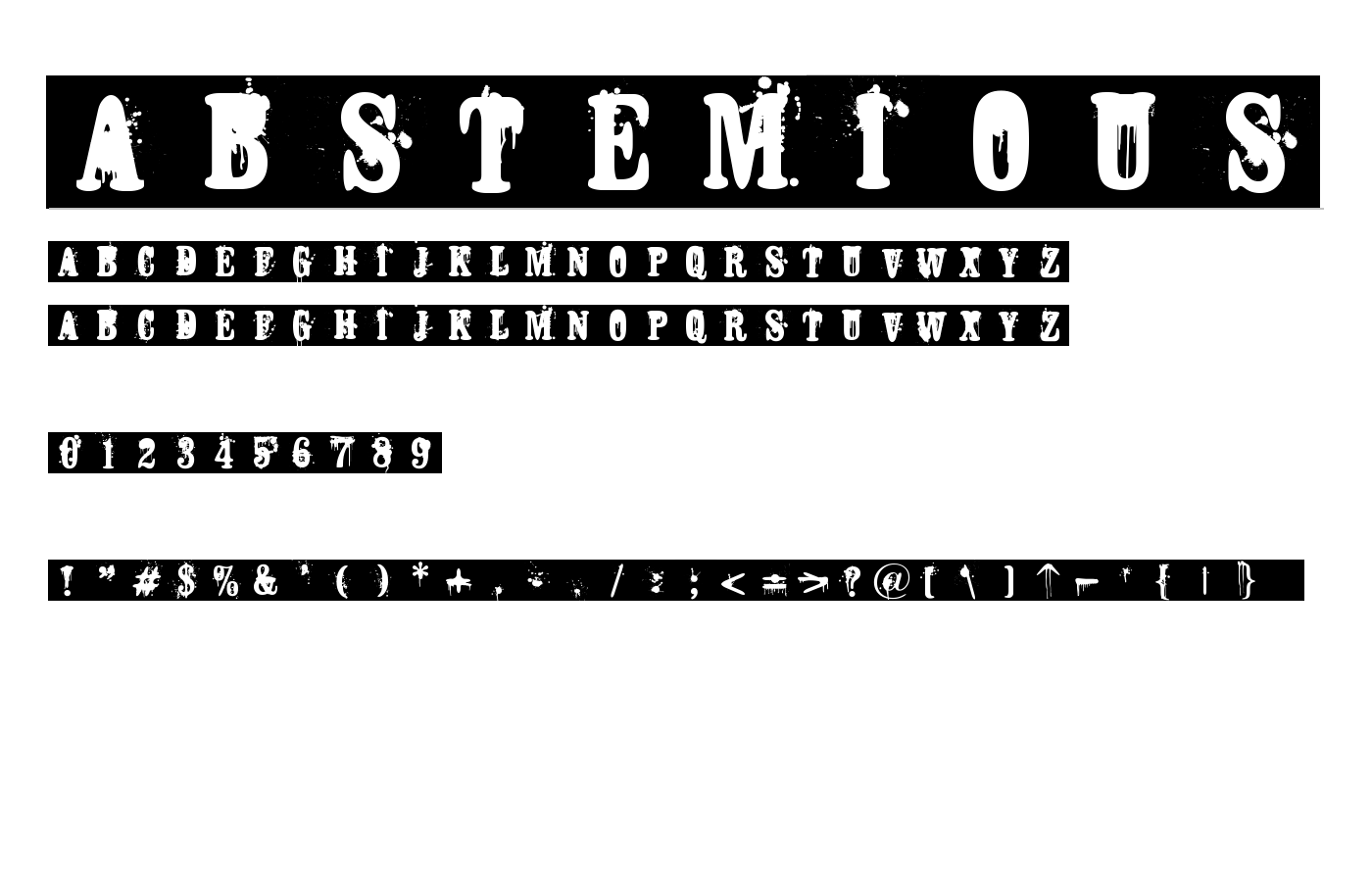
ABSTEMIOUS is a bold, slab serif display font with a distressed, grunge texture that gives it a rugged and vintage feel. Its tall, condensed letterforms combined with sharp, blocky serifs and ink splatter effects make it ideal for edgy, urban designs or retro-inspired branding. This font works best in headlines, posters, and logos where a strong, attention-grabbing style is needed.
ABSTEMIOUS Font
About ABSTEMIOUS Font